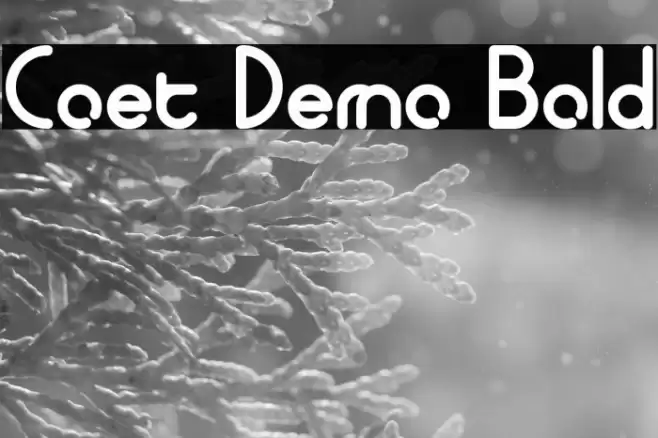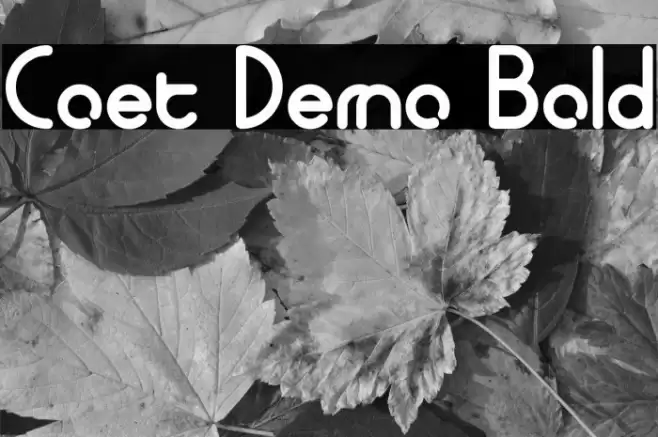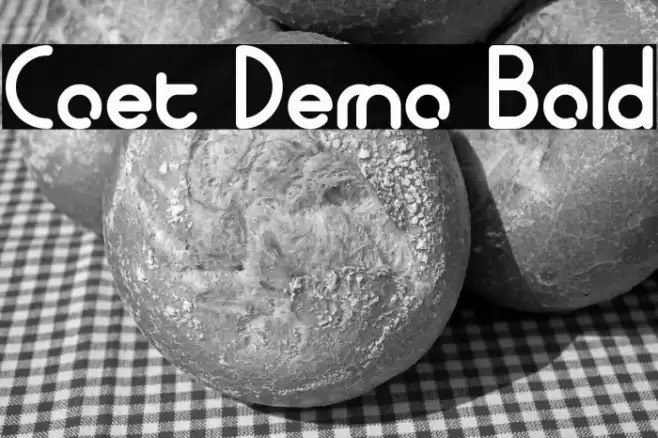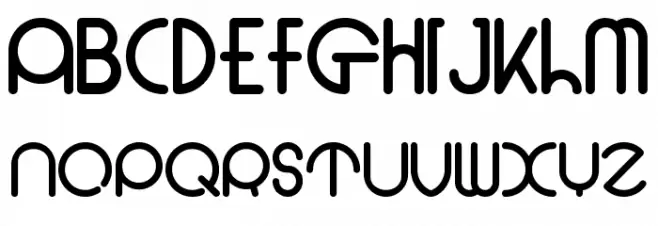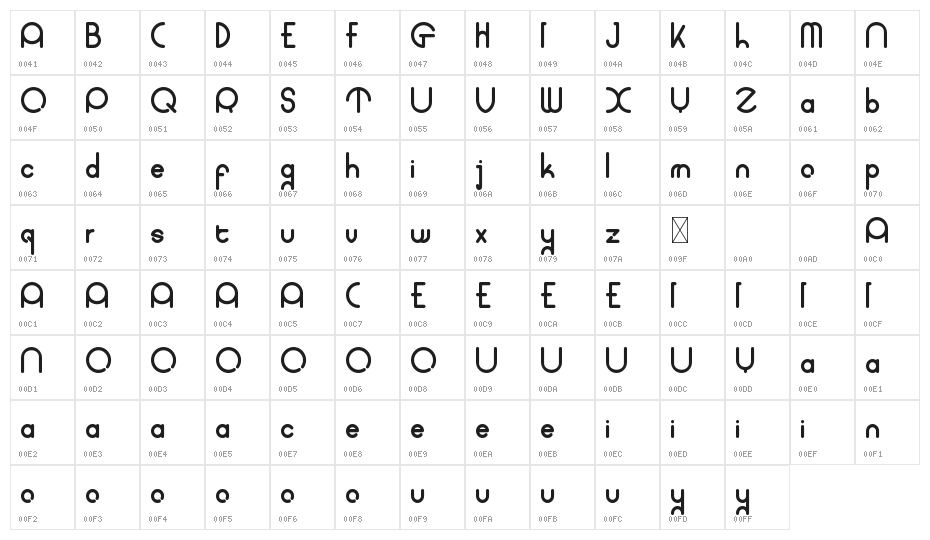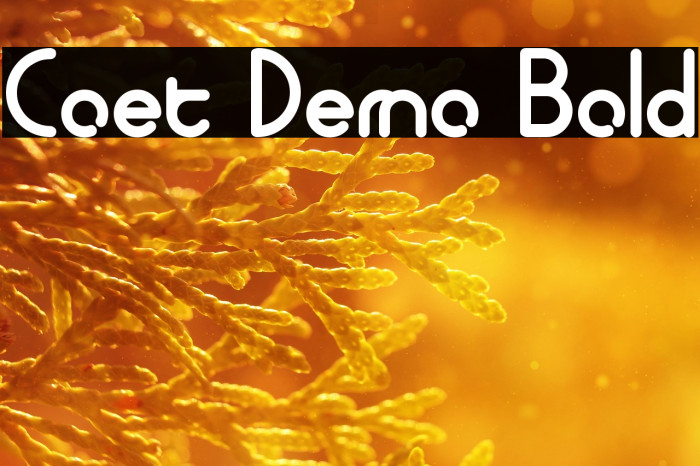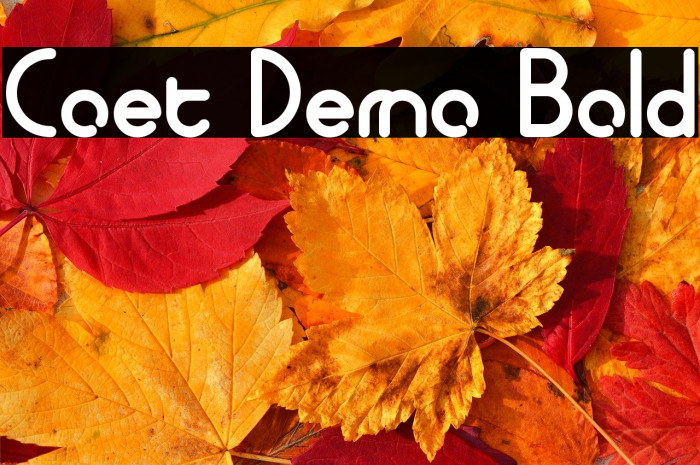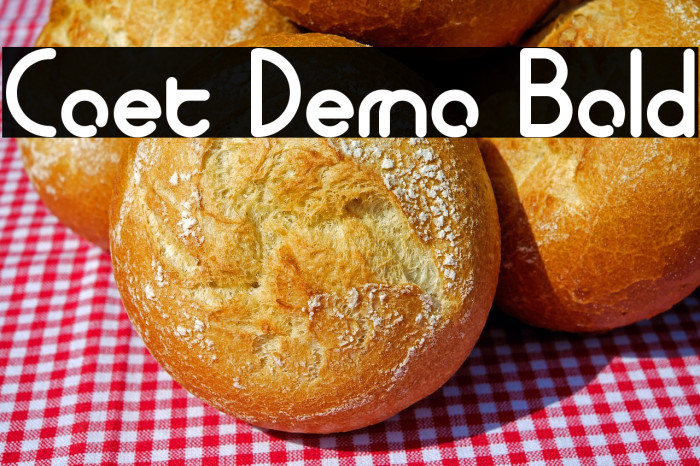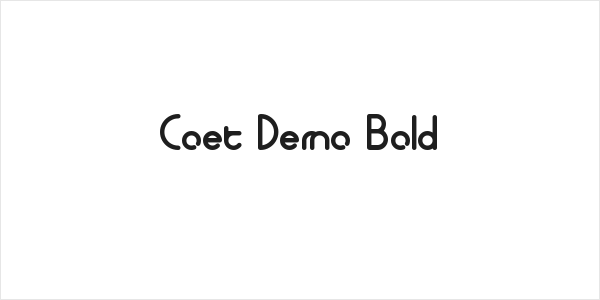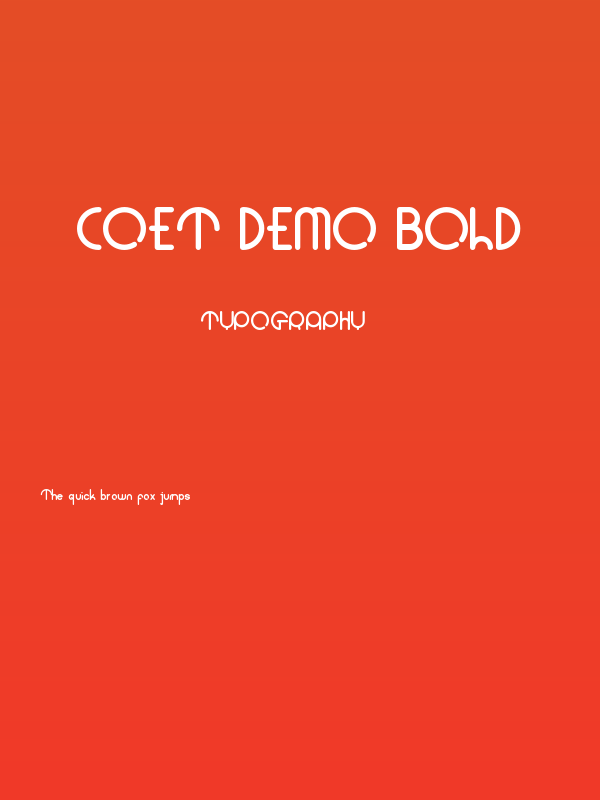
Coet Demo Bold Font
Coet Demo Bold Description
This font features a unique and modern design with rounded edges and a bold presence. The characters are crafted with a consistent stroke width, giving it a uniform appearance. The uppercase letters exhibit a geometric style, while the lowercase letters maintain a playful yet structured form. The font's design is clean and minimalistic, making it suitable for contemporary projects. Its rounded terminals and smooth curves add a friendly and approachable feel, while the bold weight ensures strong visibility and impact.
A modern, bold font with rounded edges and geometric styling from Uncategorized fonts.
- Proposed Projects: Ideal for branding, logos, headlines, and modern web design projects.